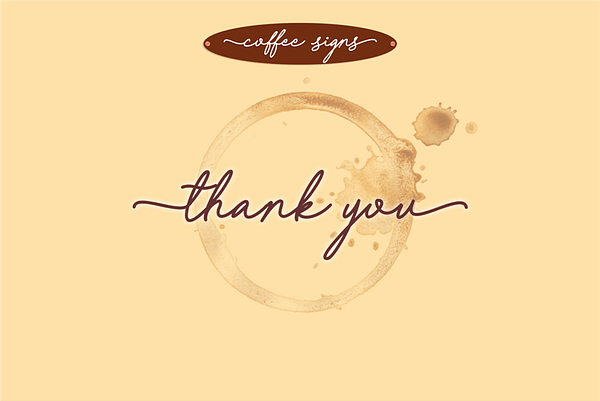
Introducing Coffee Signs font, a captivating handwritten typeface that exudes minimalism and fluidity. Infuse your design projects with a distinctive handwritten charm using this remarkable script font. Whether you’re creating a logo, packaging, invitations, or any other creative endeavor, Coffee Signs font is the perfect choice!
With its PUA encoding, this font provides effortless access to a wide range of glyphs and swashes. Unlocking endless possibilities, you can effortlessly customize your designs and elevate them to new levels of elegance and sophistication. Embrace the versatility and artistic appeal of Coffee Signs font to create stunning visuals that leave a lasting impression.
Capture the essence of coffee culture and the cozy ambiance of a coffee shop with Coffee Signs font. Its authentic handwritten style evokes a sense of warmth and familiarity, making it an ideal choice for coffee-related designs. Perfect for coffee shop logos, menu boards, signage, and more, this font embodies the essence of a coffee lover’s paradise.
Stand out from the crowd and enhance your creative projects with Coffee Signs font. Immerse yourself in a world of handwritten elegance and unlock the power of customization. Don’t miss out on the opportunity to create breathtaking designs that resonate with your audience.
- Ligature & Alternate
I created the Coffee Signs font in a unique and very easy way to get curly swash & ligature. Hopefully, that way can help and speed up your time.
I use the ligature feature to make curly swashes in front of letters and behind letters in words. You can access it by using double-asterisk (**) characters that are typed before the letters or after the letters to get a swash display.
For example, in the letters c & s, type c for front swash or s for back swash.